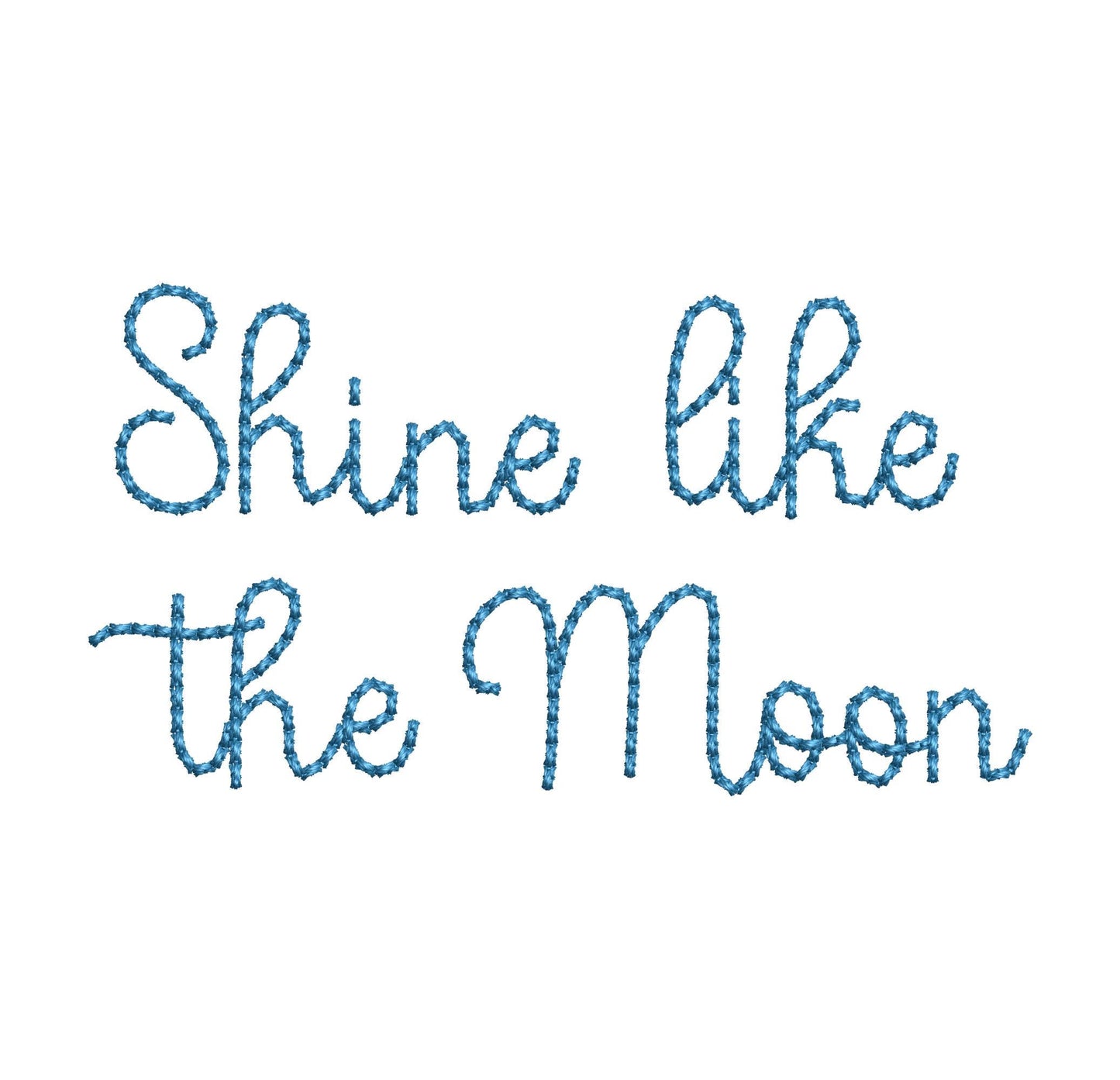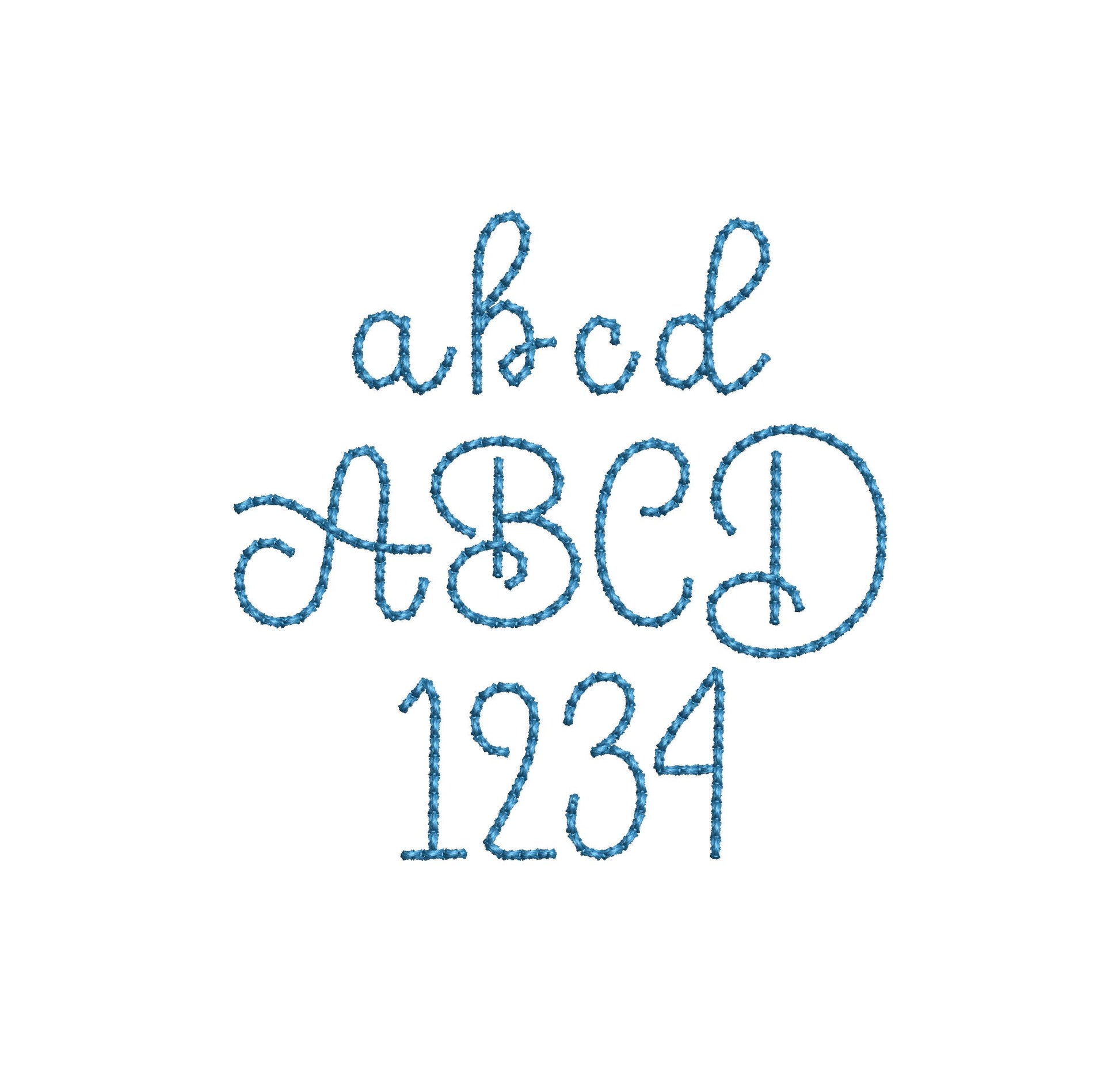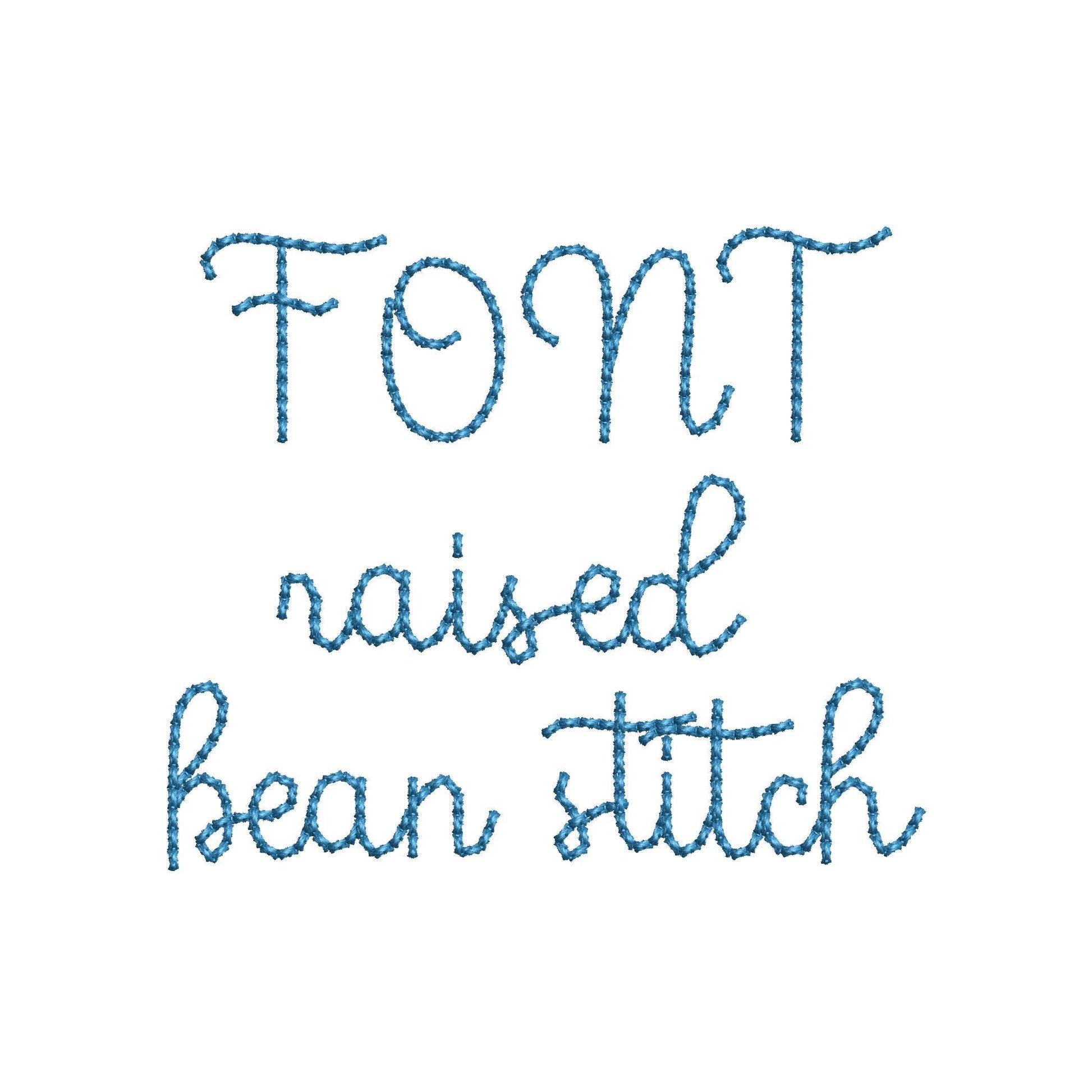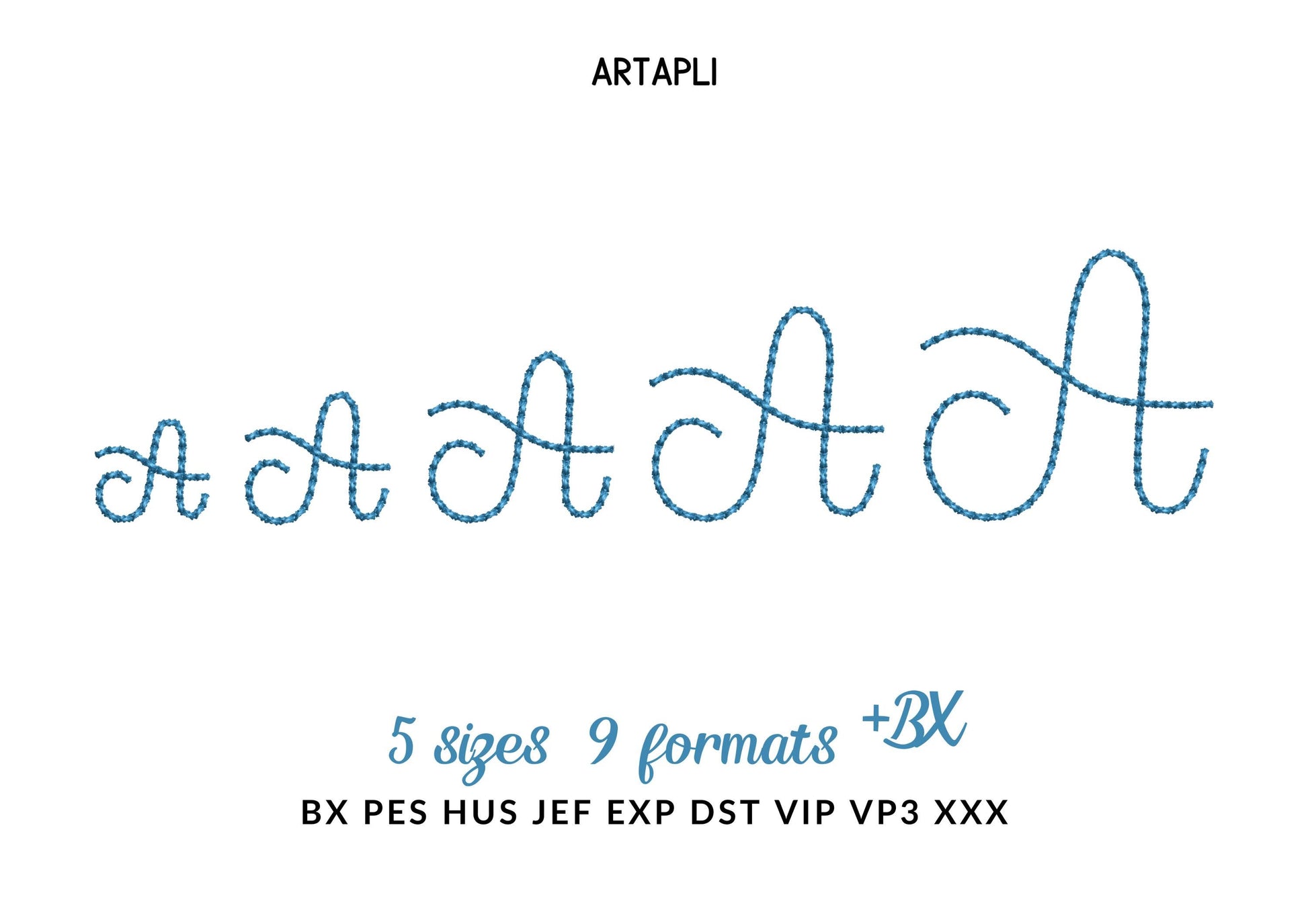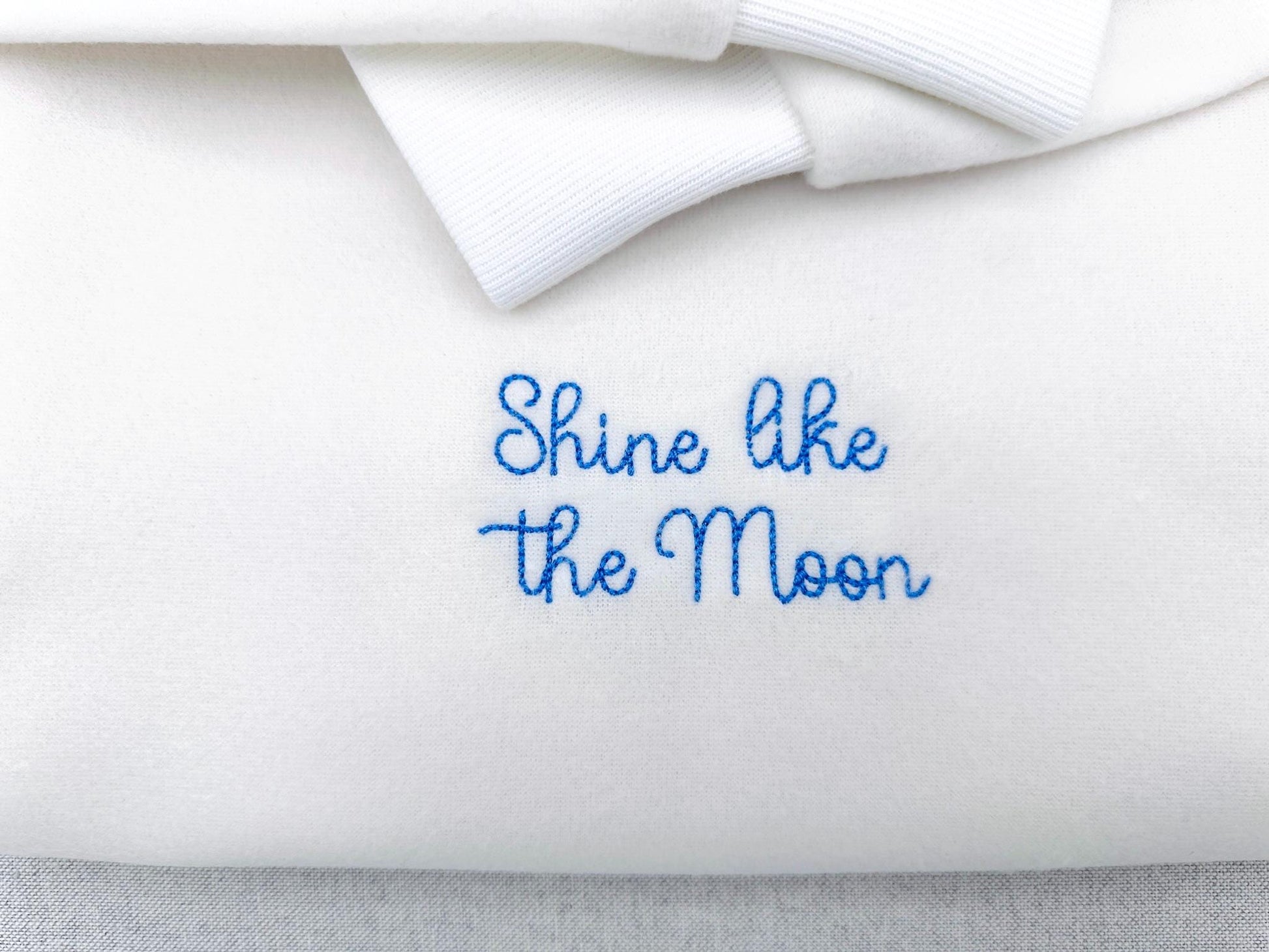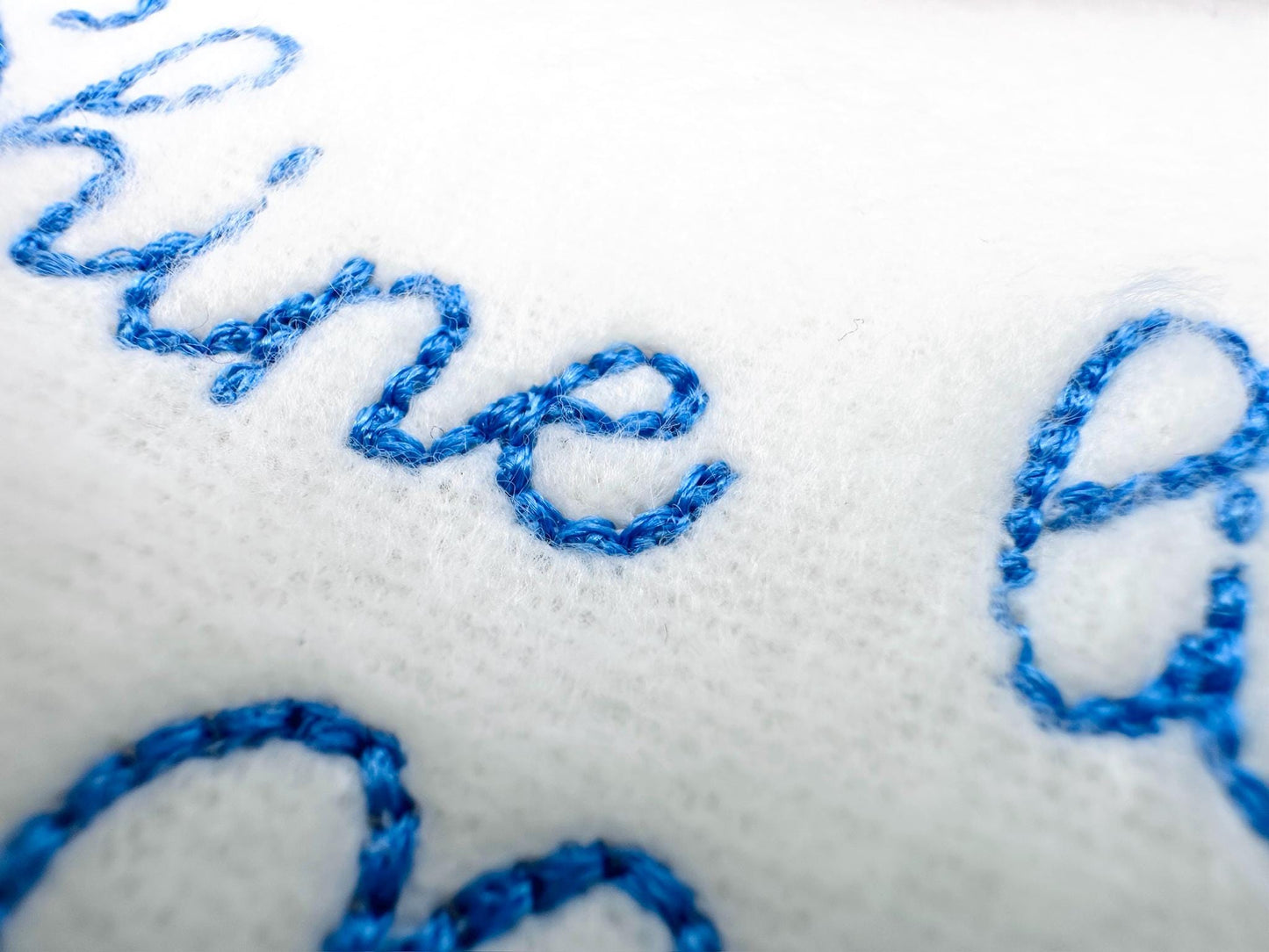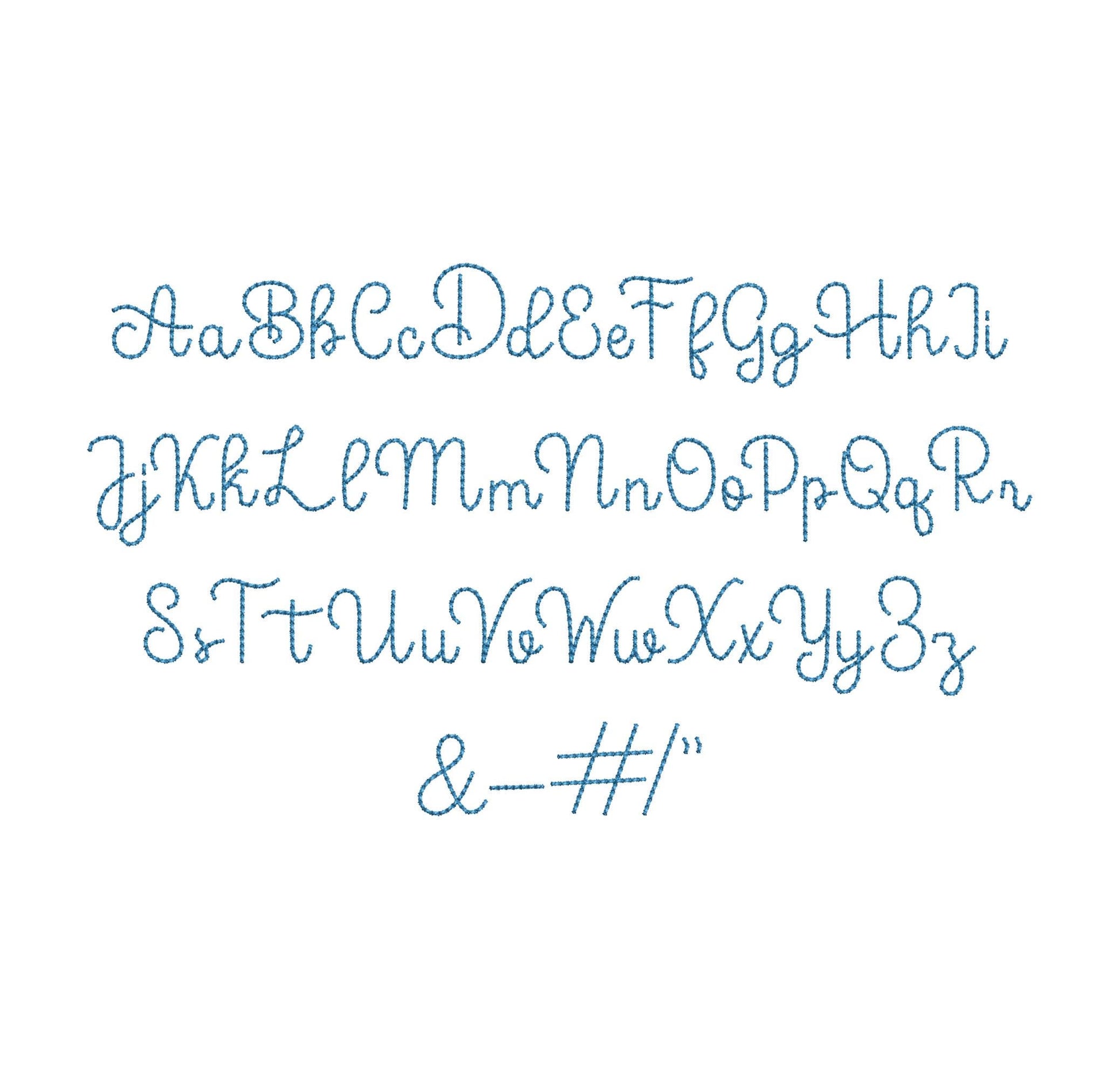
Or click to open the linkA handwritten script font in a raised bean stitch, in tiny sizes. Sweet for baby and kids' names on small spots.
The letters come in five mini sizes: 0.6, 0.8, 1, 1.3 and 1.6 inches. A slightly raised bean stitch gives the letters a soft handmade look. Includes uppercase and lowercase letters A to Z, numbers 0 to 9 and punctuation.